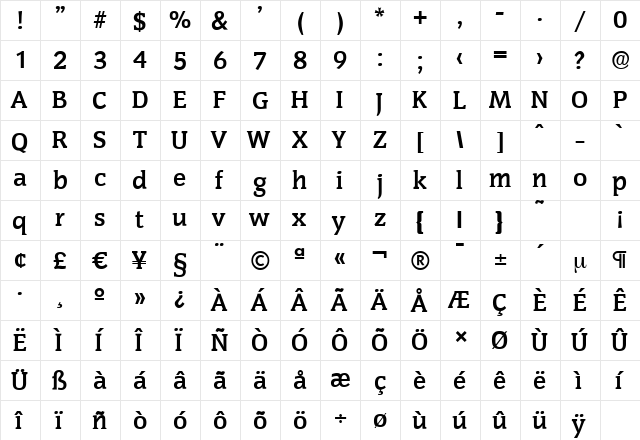
CongressSerial Bold Font Preview
CongressSerial Bold
Design Context for CongressSerial Typeface
CongressSerial is a composed and adaptable typeface that performs quietly and consistently across a wide range of design contexts. The heavy weight commands attention and anchors typographic hierarchies.
Pro Tip: Use CongressSerial in both headline and body roles to test its range before committing to a single application.